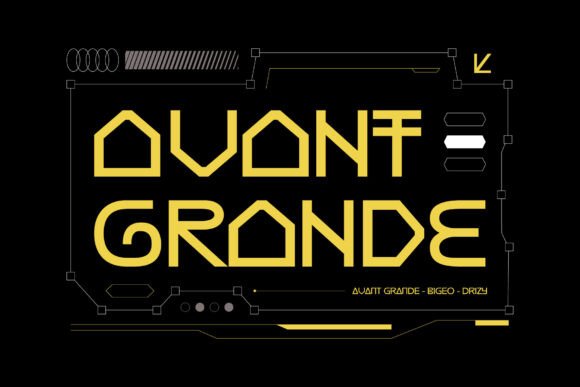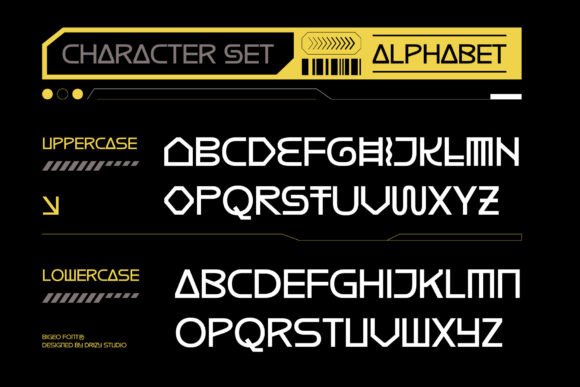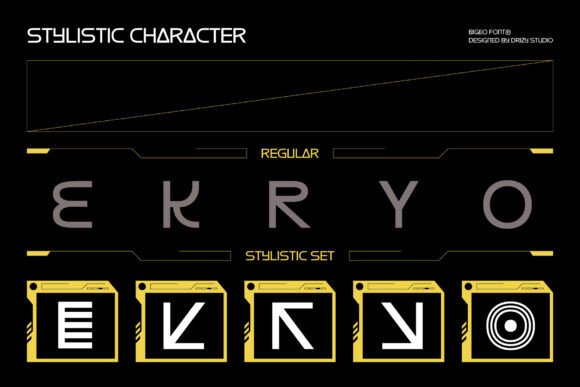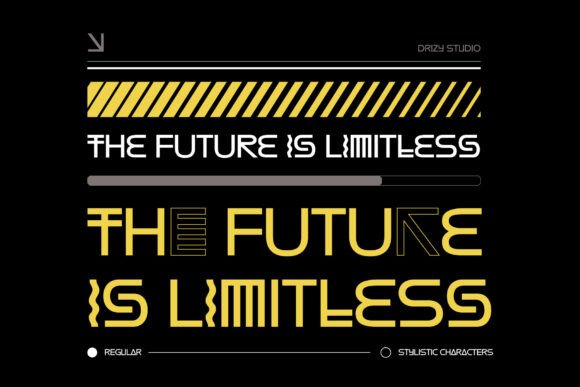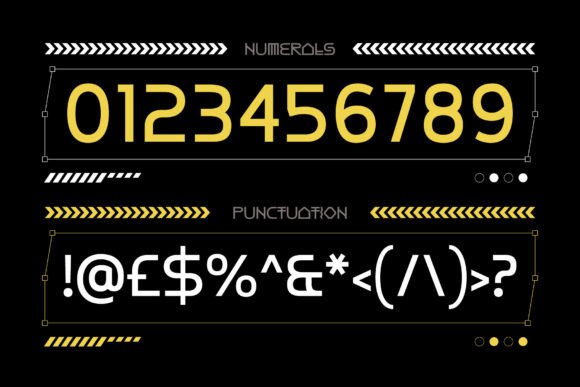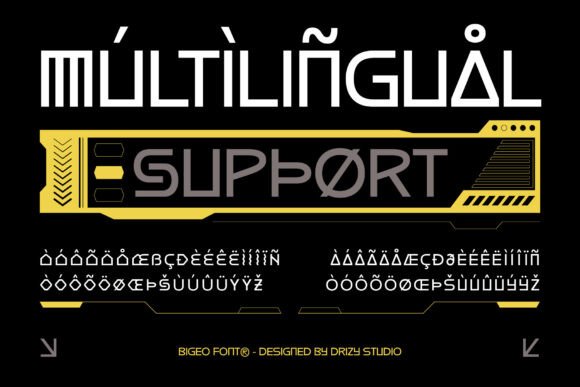
Bigeo Font: Elevate Your Designs with a Unique Blend of Geometric Precision and Artistic Flair
In the realm of typography, the right font can make all the difference in capturing the essence of a brand or design. Bigeo – Mixed Decorative Sans Serif is a captivating typeface that has been making waves in the design community. Belonging to the Modern Geometric Mixed Font category, Bigeo strikes a perfect balance between sleek professionalism and creative flair, making it an ideal choice for designers and crafters looking to elevate their projects.
The Distinctive Characteristics of Bigeo Font
Bigeo’s design is characterized by its clean, structured lines, which are combined with playful and distinctive decorative elements. This unique blend gives the font a contemporary feel that is both stylish and memorable. The geometric shapes of the letters offer a sense of precision and modernity, while the decorative touches add a layer of individuality and approachability.
One of the standout features of Bigeo is its ability to blend the precision of geometric design with the freedom of artistic expression. This balance makes it a versatile font that can be used across a wide range of projects, from branding and advertising to packaging and digital media.
Why Choose Bigeo for Your Design Projects?
There are several reasons why Bigeo has become a go-to choice for designers and crafters:
- Unique Aesthetic: Bigeo’s distinctive blend of geometric precision and decorative flair sets it apart from more traditional typefaces. Its unique aesthetic can help your designs stand out in a crowded marketplace.
- Versatility: Whether you’re working on a sleek corporate brand or a playful creative project, Bigeo’s versatility makes it an excellent choice. It can be used for headlines, body text, and even decorative elements.
- Legibility: Despite its decorative elements, Bigeo remains highly legible, making it suitable for both print and digital applications.
- Modern Appeal: Bigeo’s geometric shapes and clean lines give it a distinctly modern feel that is sure to appeal to designers looking for a contemporary edge.
Applications of Bigeo Font
Bigeo’s flexibility and distinctive style make it suitable for a wide range of applications, including:
- Branding and Logo Design: Bigeo’s unique aesthetic can help create memorable and impactful brand identities.
- Advertising and Marketing Materials: Use Bigeo to add a touch of creativity and professionalism to your advertising campaigns.
- Packaging Design: Bigeo’s modern appeal and legibility make it an excellent choice for product packaging.
- Digital Media: From website headers to social media graphics, Bigeo can help elevate your digital content.
Tips for Using Bigeo Effectively in Your Designs
To get the most out of Bigeo, consider the following tips:
- Experiment with Sizes: Bigeo’s legibility and aesthetic appeal make it suitable for use at a variety of sizes. Experiment with different sizes to find the perfect balance for your design.
- Play with Colors: Bigeo’s geometric shapes and decorative elements can be enhanced with the right color choices. Don’t be afraid to experiment with different color palettes.
- Combine with Other Fonts: Bigeo’s versatility makes it an excellent choice for pairing with other fonts. Look for font combinations that complement its unique style.
Bigeo – Mixed Decorative Sans Serif is a powerful tool in the world of typography. Its unique blend of geometric precision and artistic flair makes it an ideal choice for designers and crafters looking to create impactful and memorable designs. Whether you’re working on a branding project, advertising campaign, or digital media, Bigeo is sure to elevate your work and help you stand out in a crowded design landscape.
With its clean lines, distinctive decorative elements, and modern appeal, Bigeo is a font that can help you achieve your design goals while adding a touch of creativity and professionalism. So why settle for ordinary when you can make a statement with Bigeo?